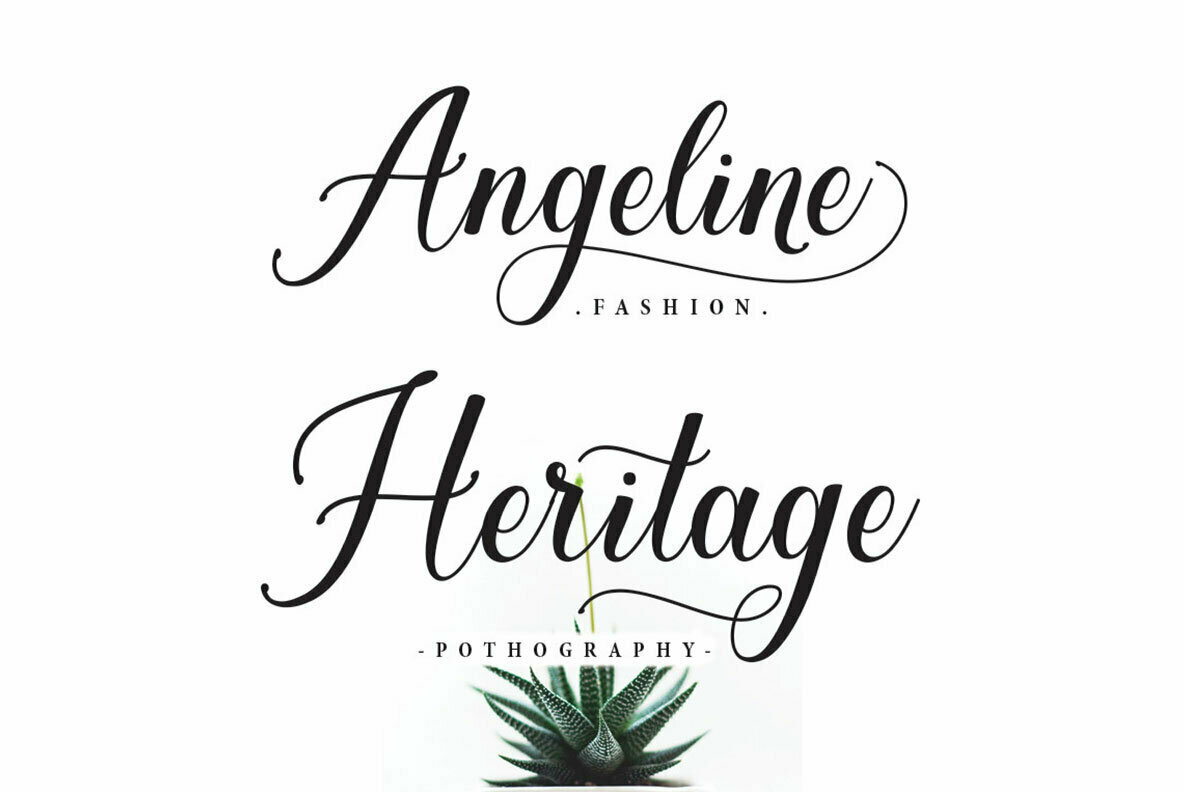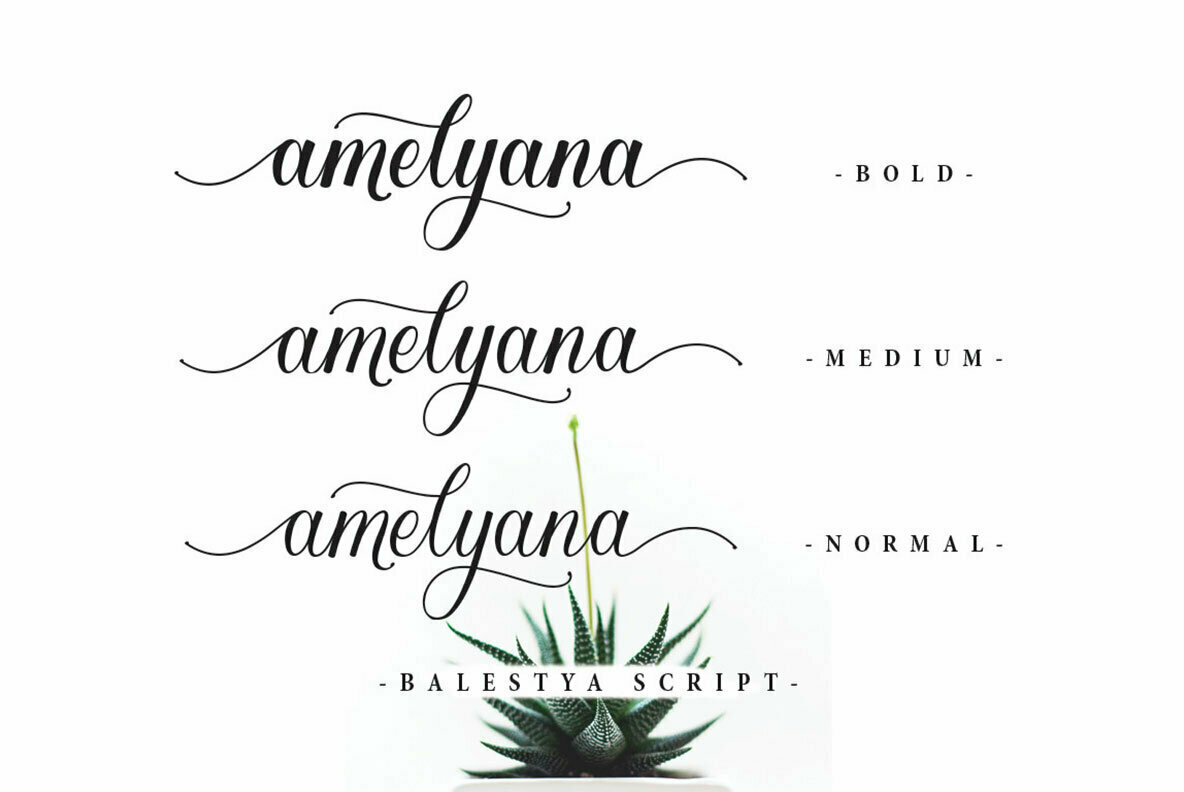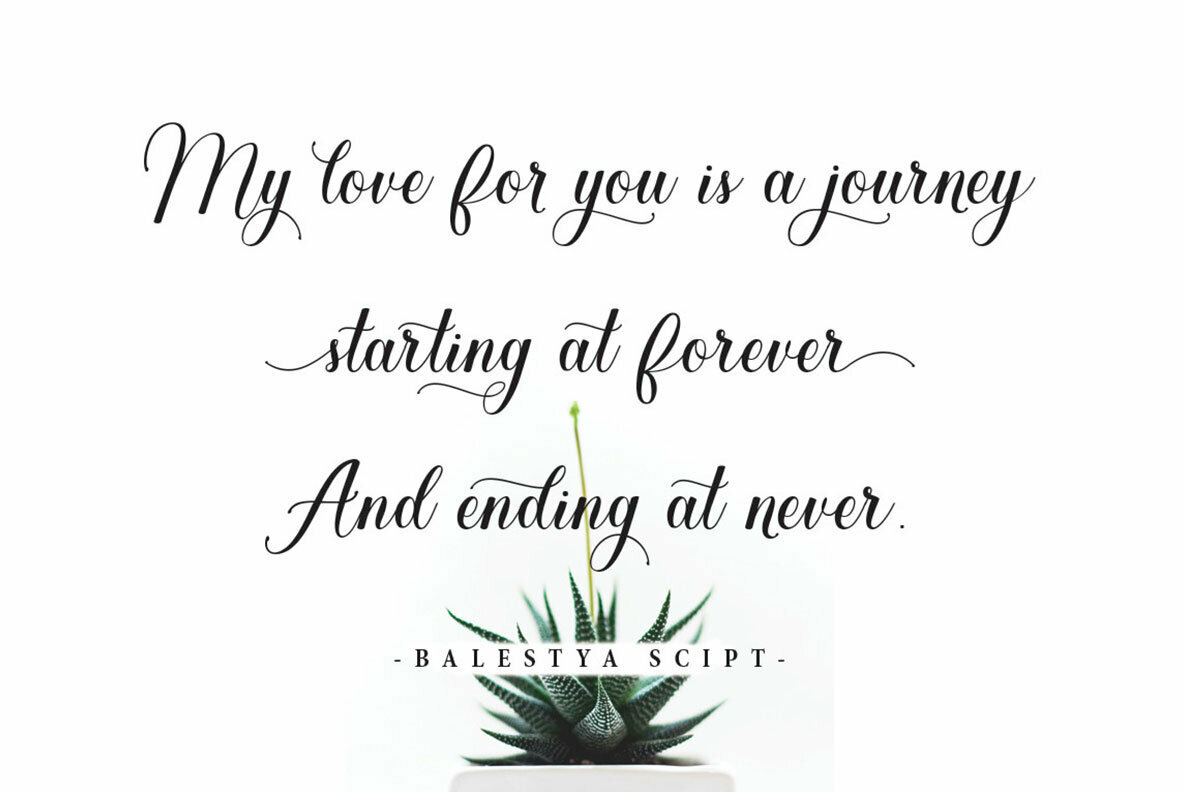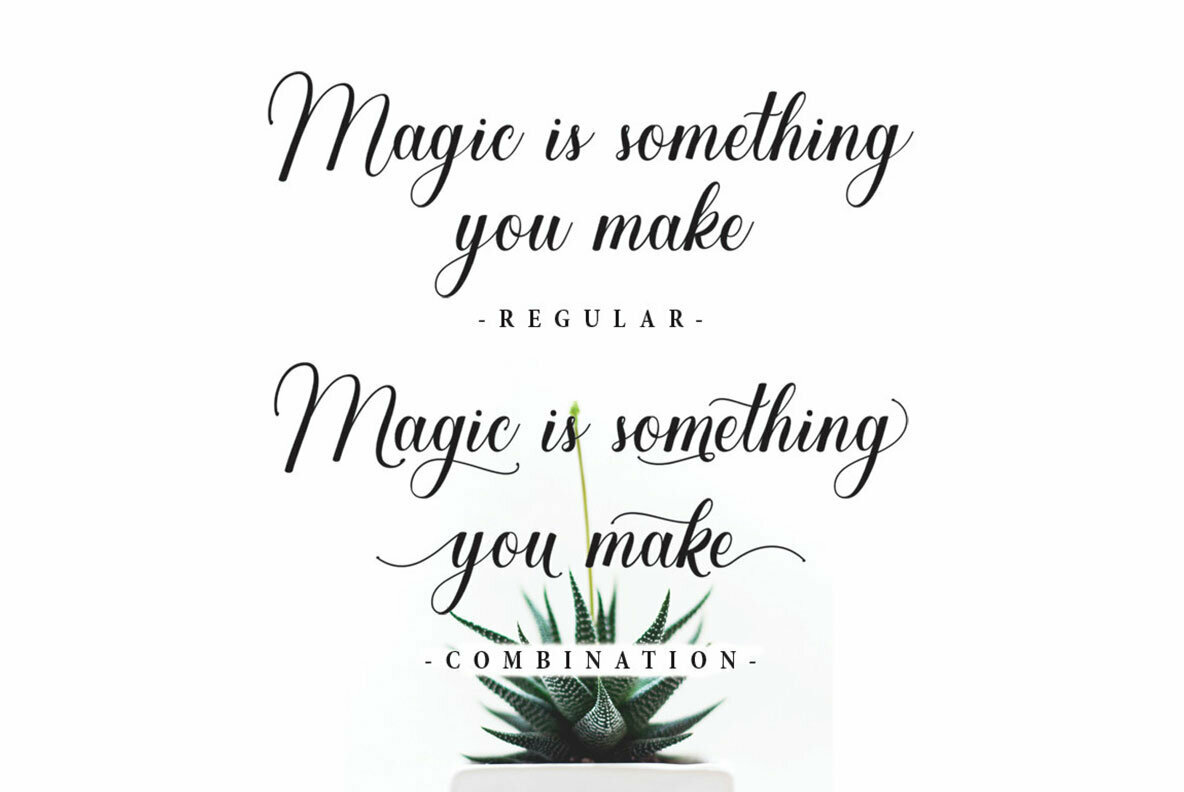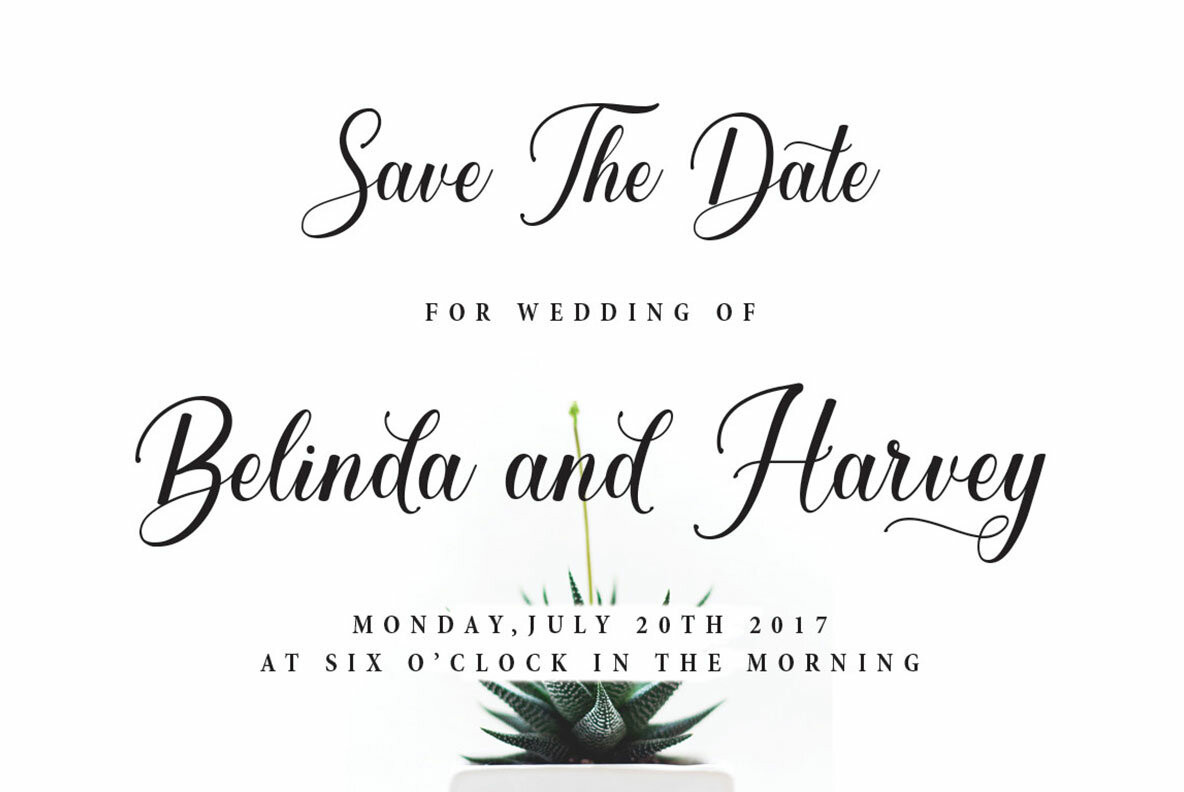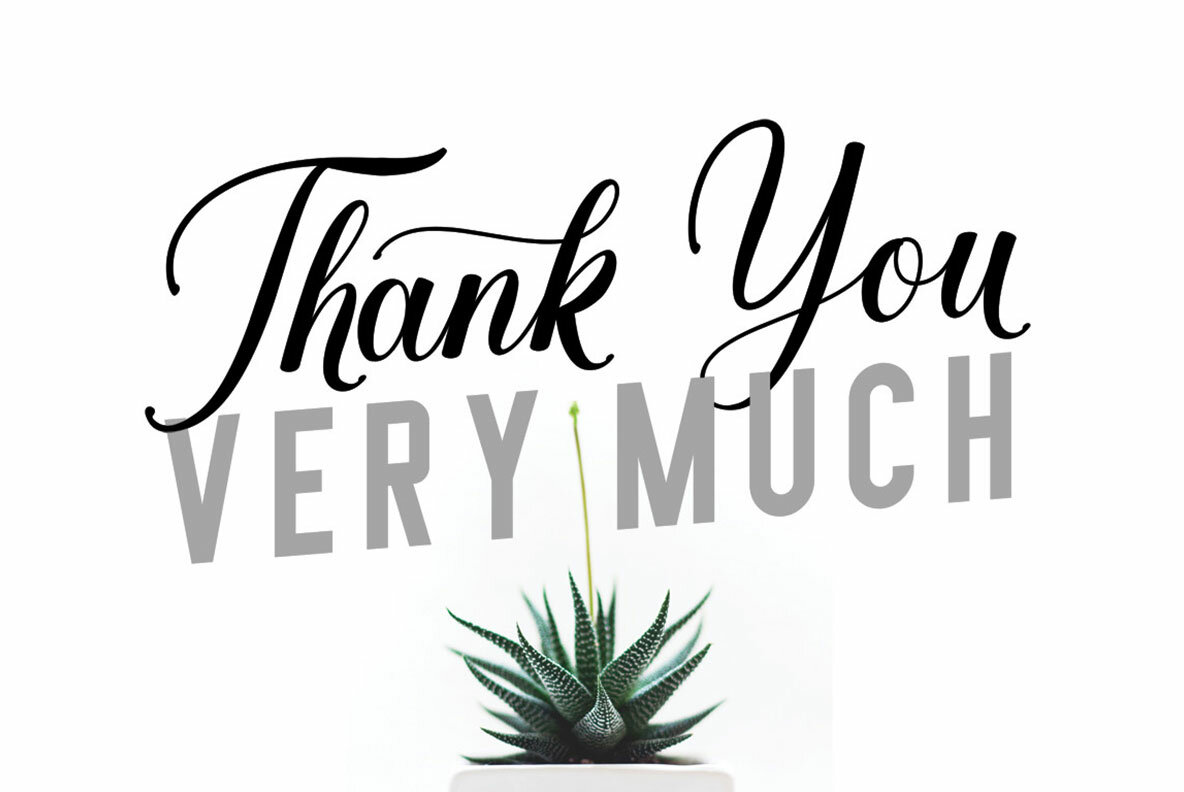
Balestya Script Font
Balestya Normal
Balestya Medium
Balestya Bold
Balestya Sans
Balestya Script offers a delicate blend of modern calligraphy and refined elegance, making it a fitting choice for numerous design projects. Whether you're designing a logotype, enhancing a website header, or crafting a fashion or wedding card, Balestya Script stands out with its majestic style. The font suite includes options like Balestya Normal, Balestya Medium, Balestya Bold, and Balestya Sans, ensuring versatility for any creative endeavor. Each version of Balestya Script contains an extensive set of lower and uppercase letters, a wide range of punctuation, numerals, and comprehensive multilingual support.Balestya Script: Elegance in Modern Calligraphy